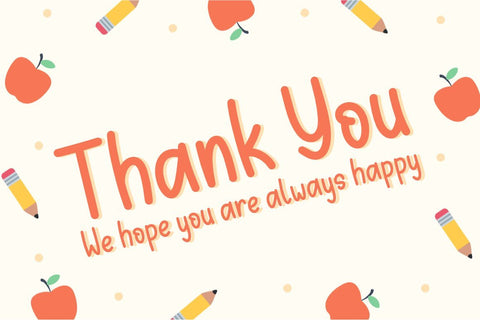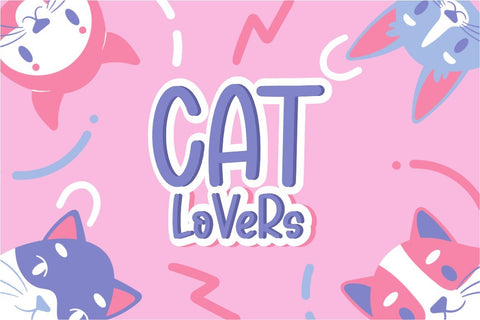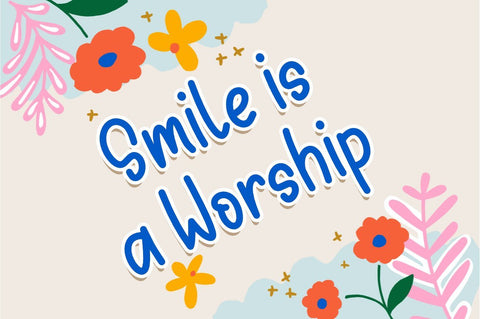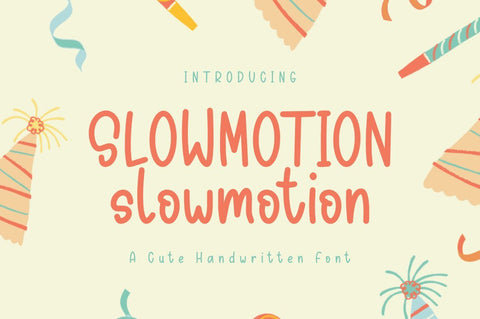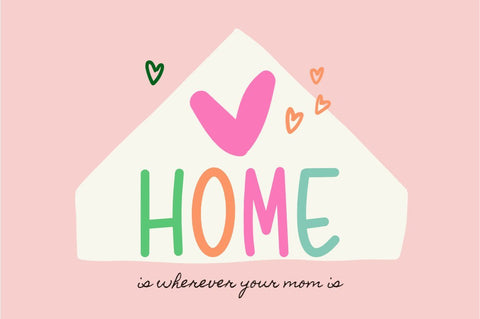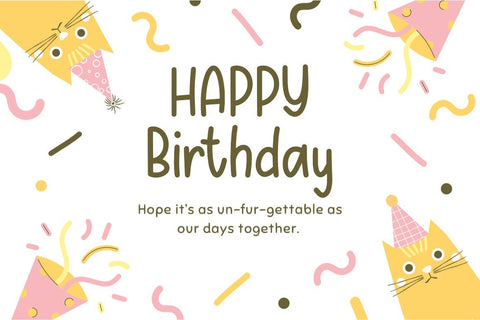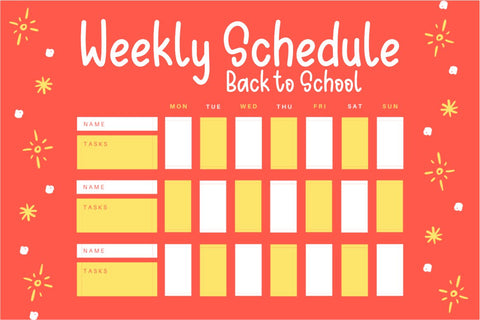
Slowmotion - A Cute Handwritten Font
Slowmotion is a Display font with a cute Handwriting style. This font has a unique glyph. This font is very compatible so you can install it in various software. This font is suitable for various purposes such as t-shirts, branding, crafts, quotes, birthdays, logotypes, food business etc.